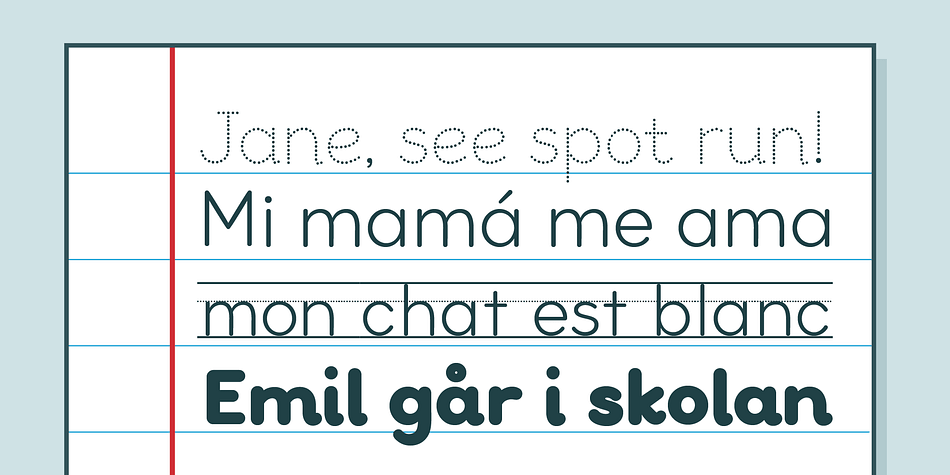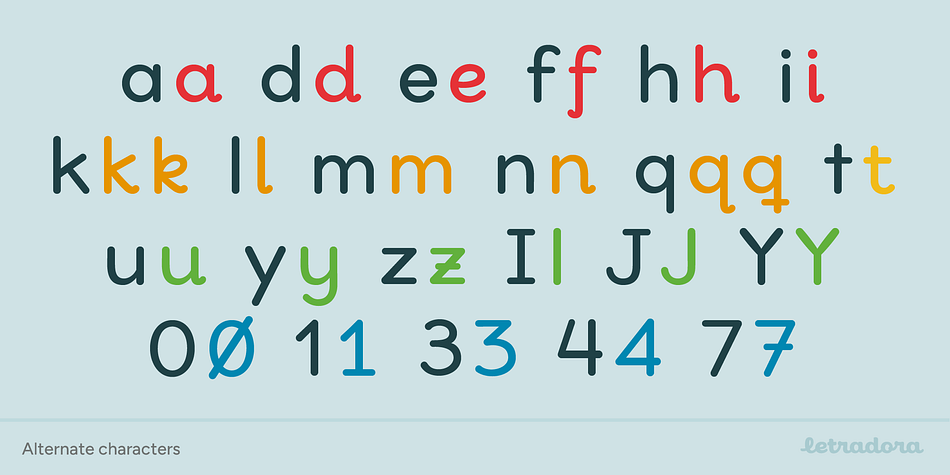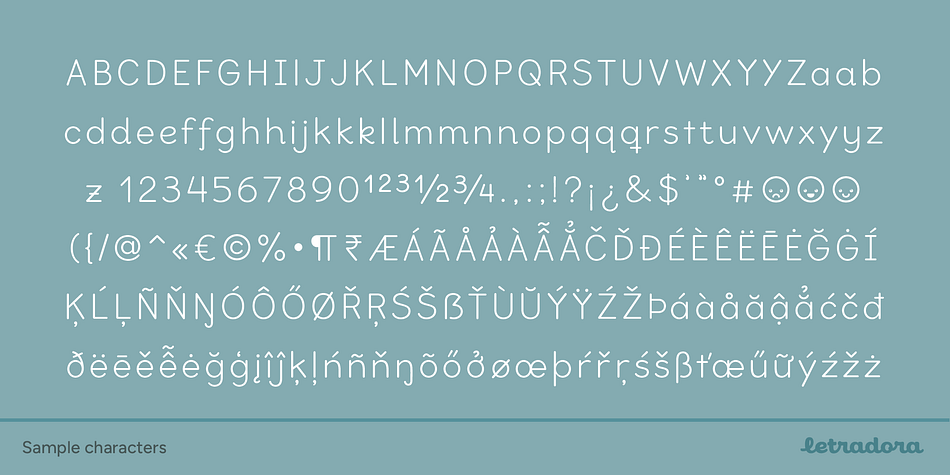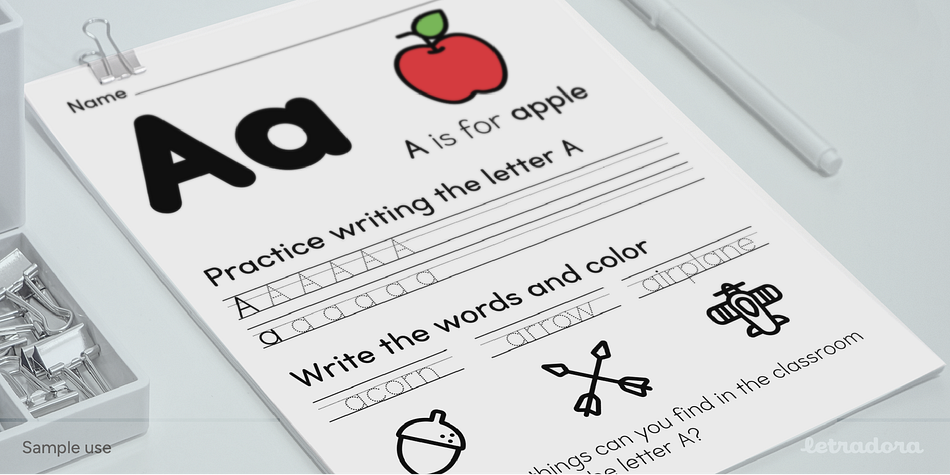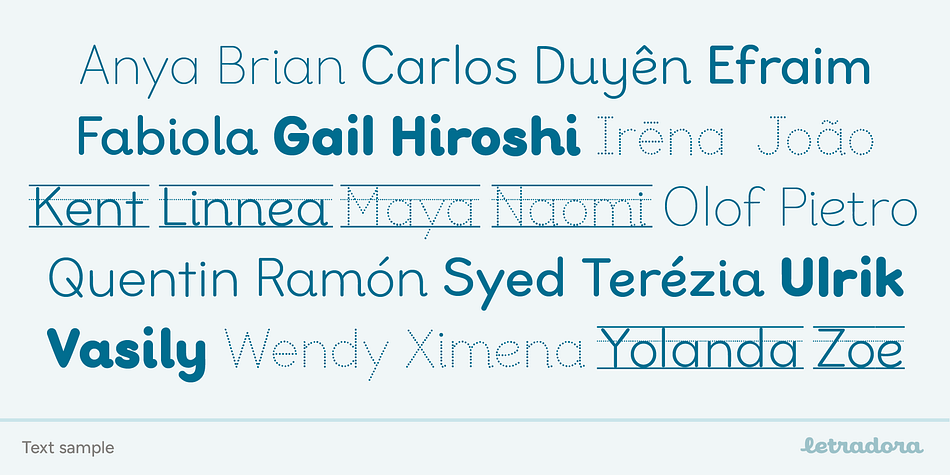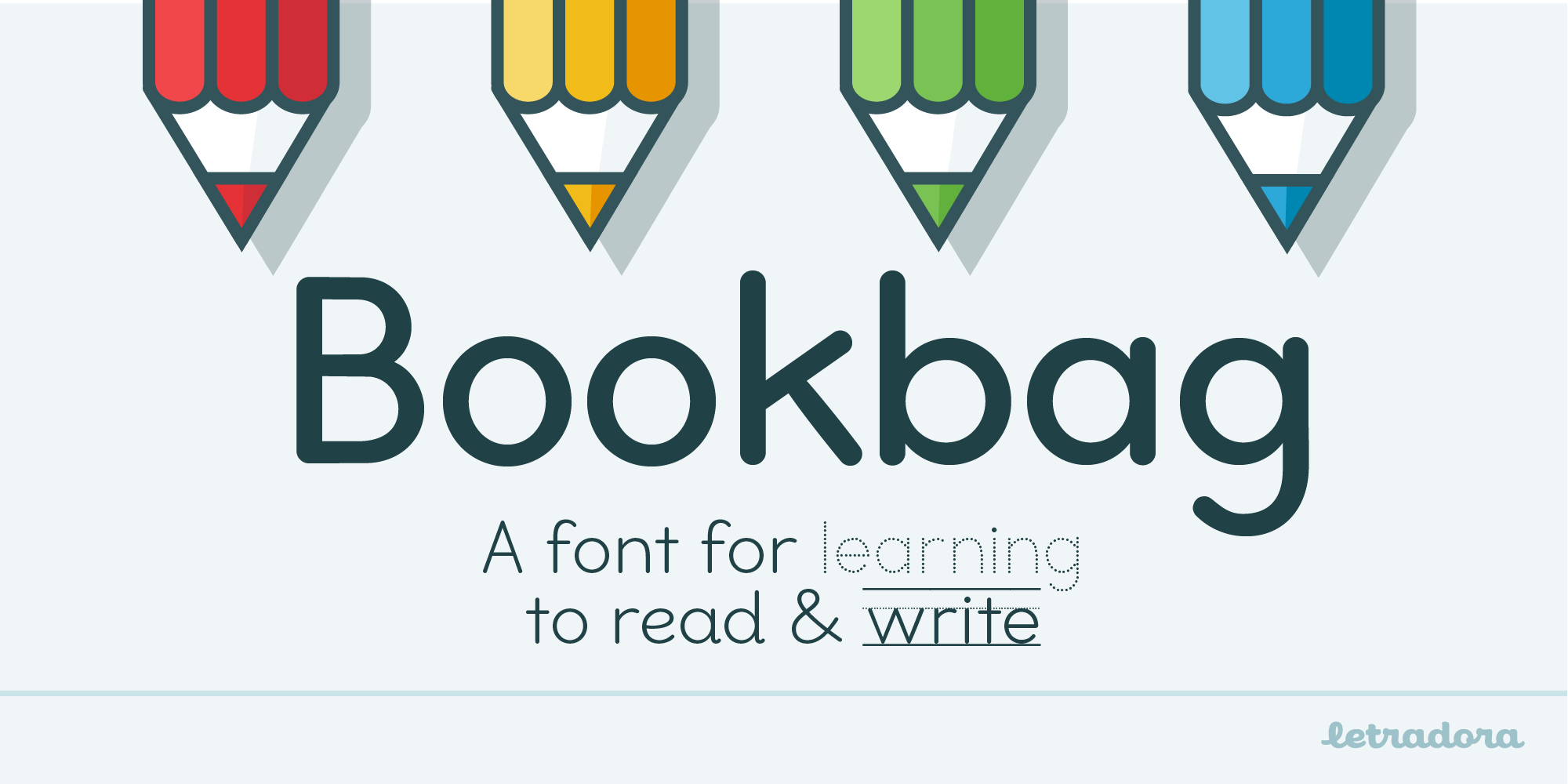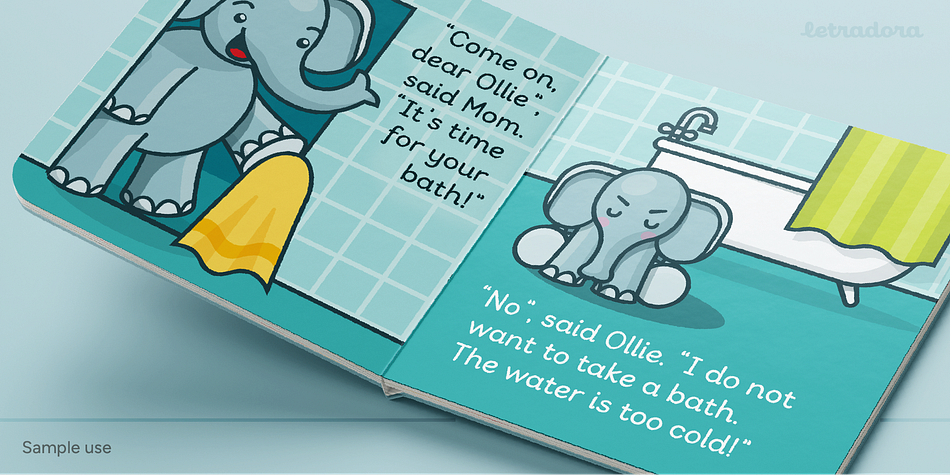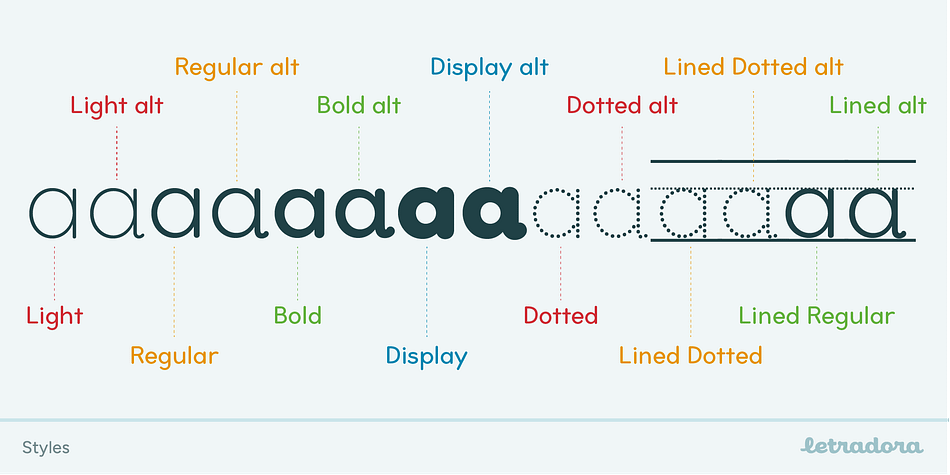
Bookbag
Designed by Kemie Guaida, Bookbag is a kids and sans serif font family. This typeface has fourteen styles and was published by Letradora.
Bookbag is a font for teaching kids to read and write. It comes in 4 weights, from light to extrabold, and has dotted and lined versions for students to practice.
Many glyphs have alternate versions, that can be accessed either through OpenType stylistic alternates, or using the Alt versions of the font.
Bookbag has a very wide language support, with most latin languages supported.